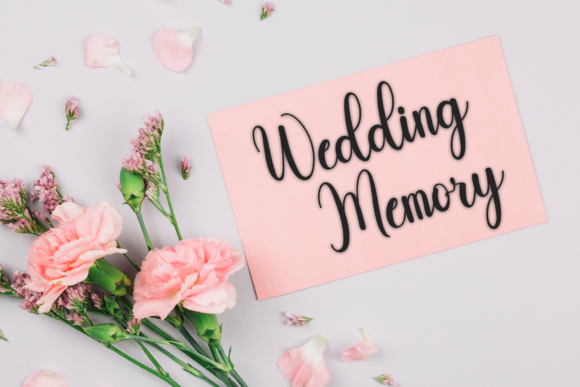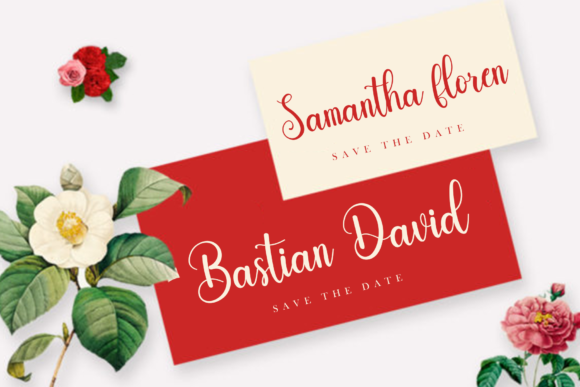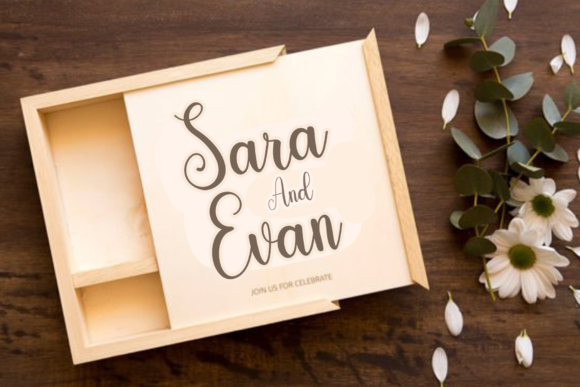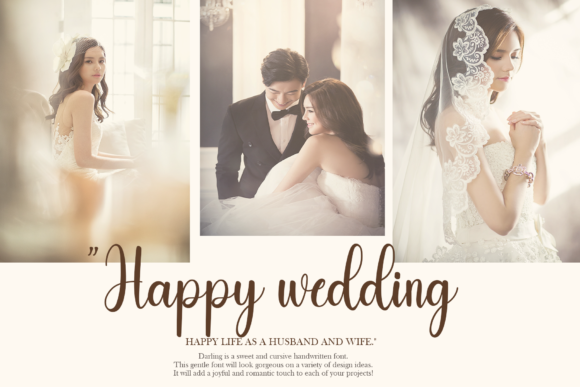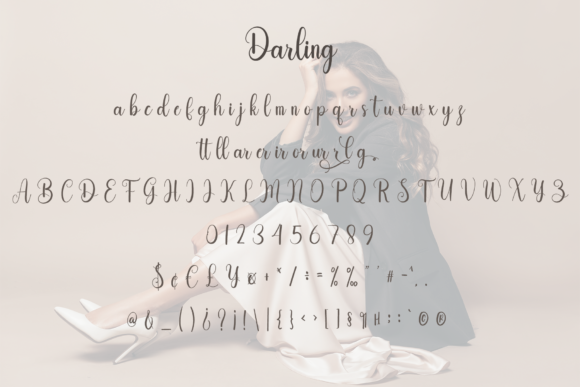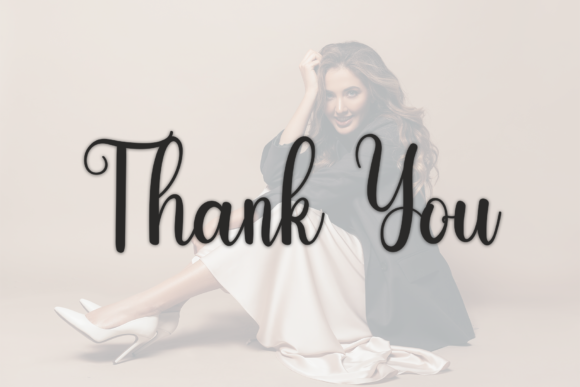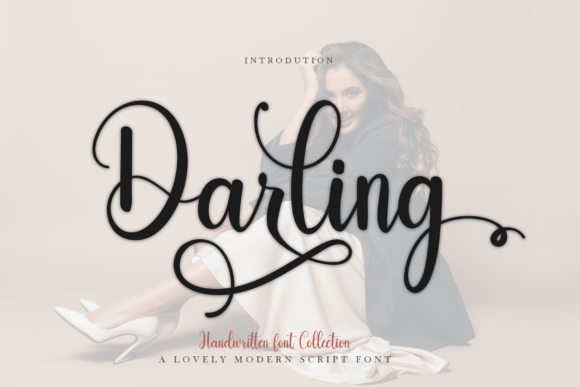
Introducing Darling Font: The Sweet and Cursive Handwritten Font for Your Design Needs
Are you looking for a font that can add a touch of sweetness and romance to your design projects? Look no further than Darling Font, a beautiful and cursive handwritten font that is perfect for a variety of design ideas. In this article, we’ll take a closer look at Darling Font, its features, and how you can use it to elevate your designs.
What is Darling Font?
Darling Font is a sweet and cursive handwritten font that is designed to add a joyful and romantic touch to your projects. Its gentle curves and flowing lines make it perfect for creating beautiful and eye-catching designs. Whether you’re working on a wedding invitation, a branding project, or a social media graphic, Darling Font is sure to make your design stand out.
Features of Darling Font
Darling Font has several features that make it a great choice for designers and crafters. Some of its key features include:
- Sweet and Cursive Design: Darling Font has a sweet and cursive design that is perfect for creating romantic and feminine designs.
- Handwritten Style: The font has a handwritten style that gives it a personal and unique touch.
- Easy to Read: Despite its cursive design, Darling Font is easy to read and can be used for both headings and body text.
- Versatile: Darling Font can be used for a variety of design projects, including wedding invitations, branding, social media graphics, and more.
How to Use Darling Font in Your Designs
Darling Font is a versatile font that can be used in a variety of design projects. Here are some ideas for using Darling Font in your designs:
- Wedding Invitations: Darling Font is perfect for wedding invitations, as it adds a romantic and elegant touch to your design.
- Branding Projects: Use Darling Font to create a feminine and elegant brand identity for your business.
- Social Media Graphics: Darling Font can be used to create eye-catching social media graphics, including Facebook posts, Instagram stories, and more.
- Stationery: Use Darling Font to create beautiful stationery, including notecards, greeting cards, and more.
Tips for Getting the Most Out of Darling Font
Here are some tips for getting the most out of Darling Font:
- Pair it with Other Fonts: Darling Font can be paired with other fonts to create a unique and interesting design.
- Experiment with Colors: Try out different colors and color combinations to see what works best with Darling Font.
- Use it for Headings and Titles: Darling Font is perfect for headings and titles, as it adds a touch of elegance and sophistication to your design.
In conclusion, Darling Font is a beautiful and versatile font that can add a touch of sweetness and romance to your design projects. Its sweet and cursive design, handwritten style, and ease of use make it a great choice for designers and crafters. Whether you’re working on a wedding invitation, branding project, or social media graphic, Darling Font is sure to make your design stand out.